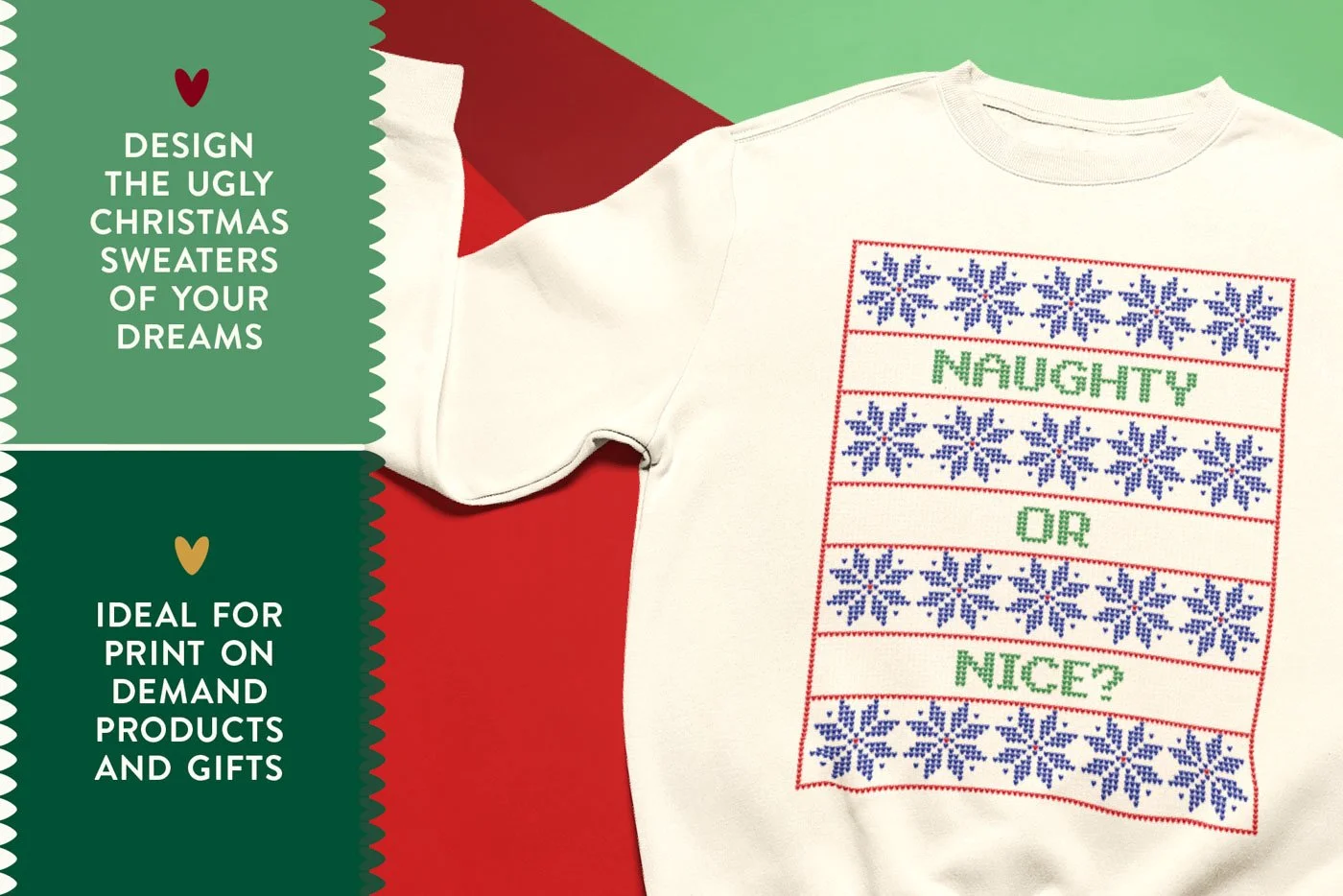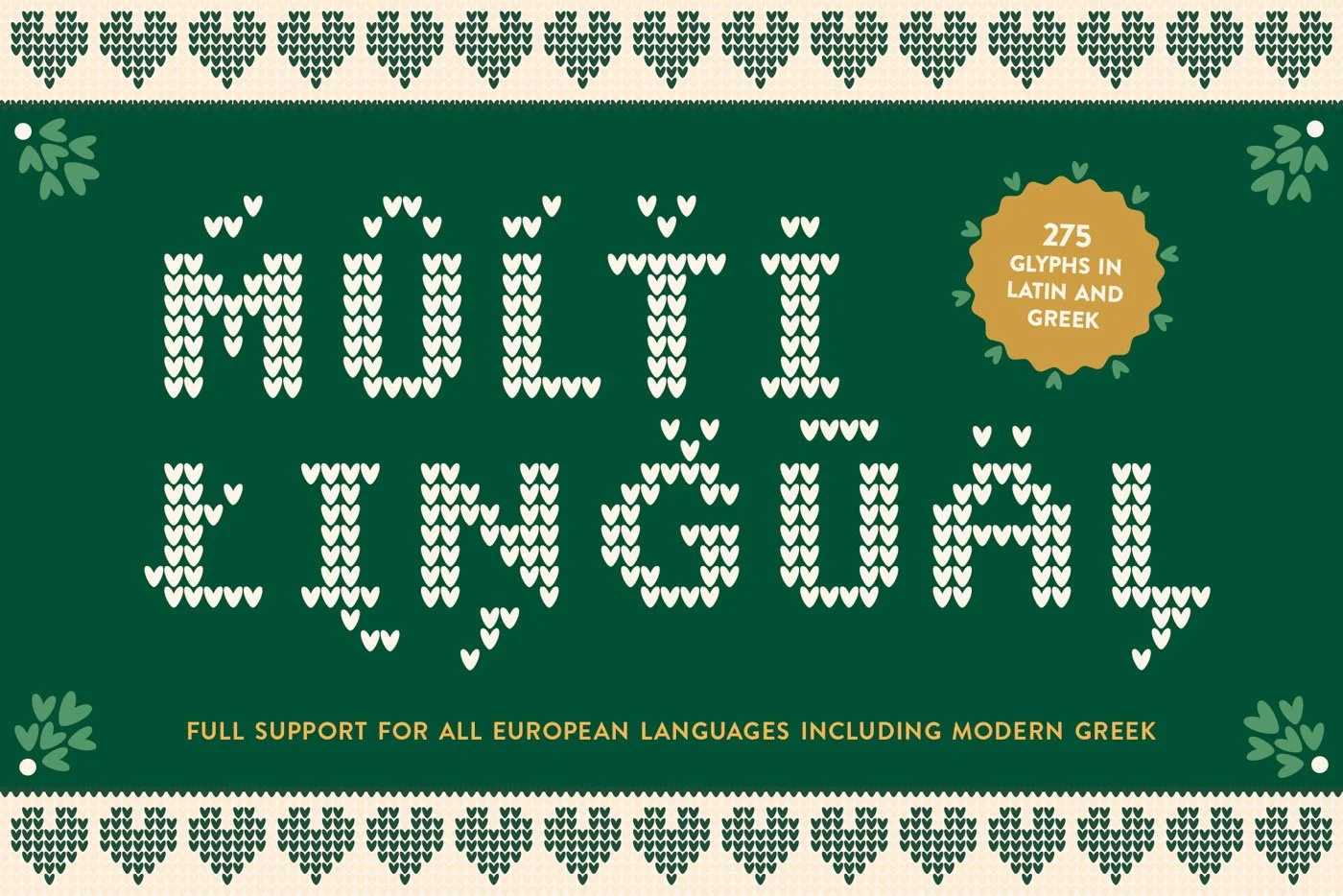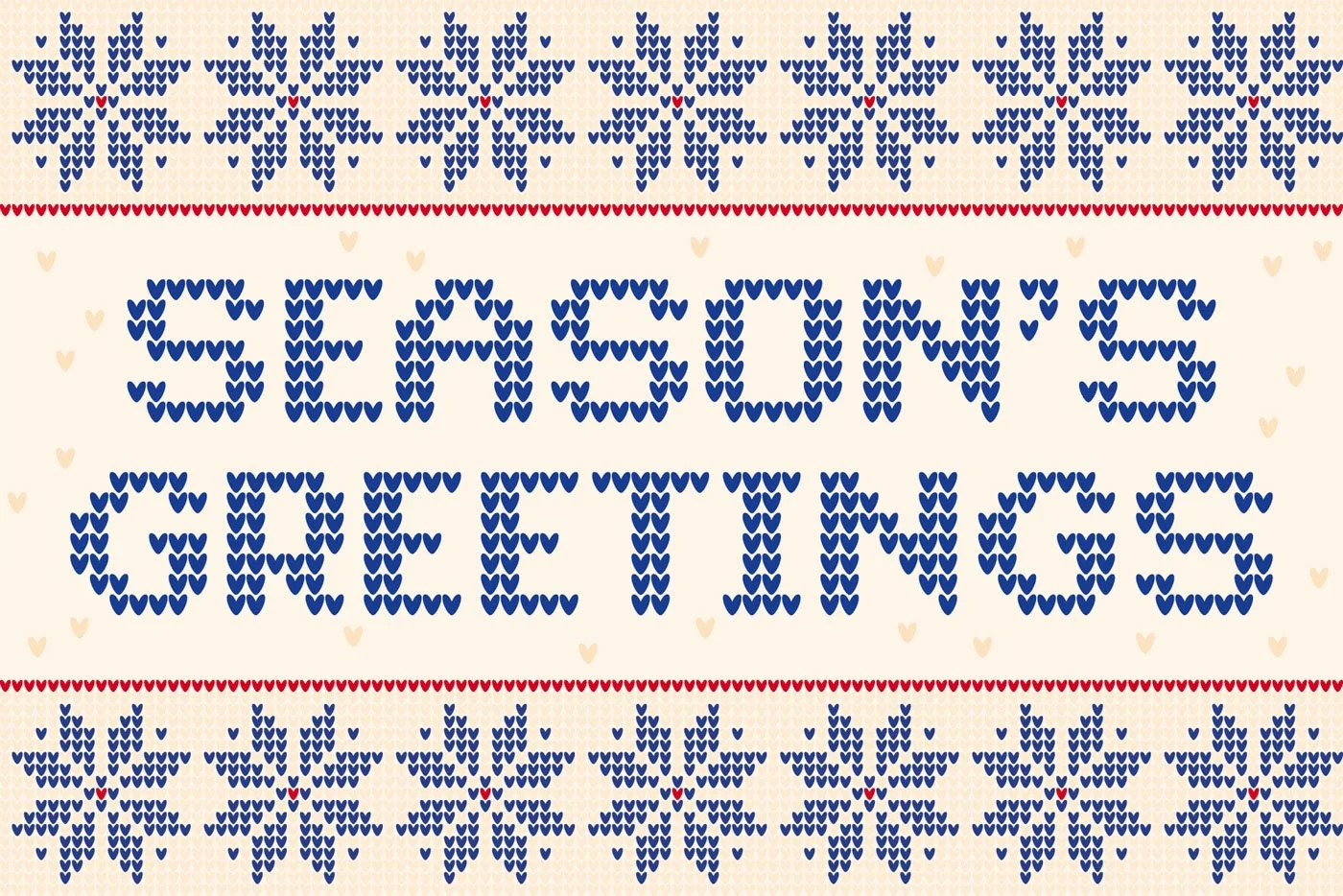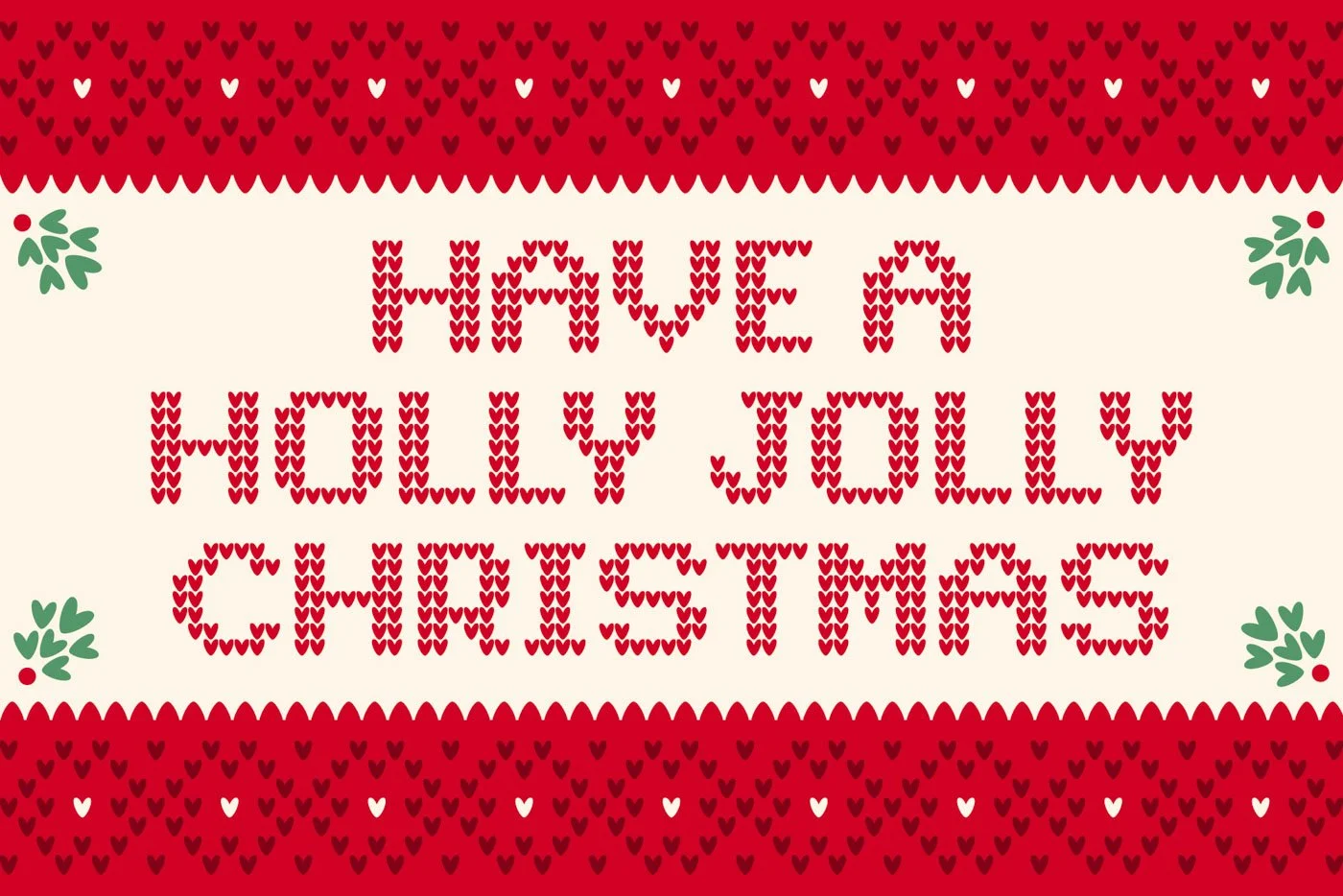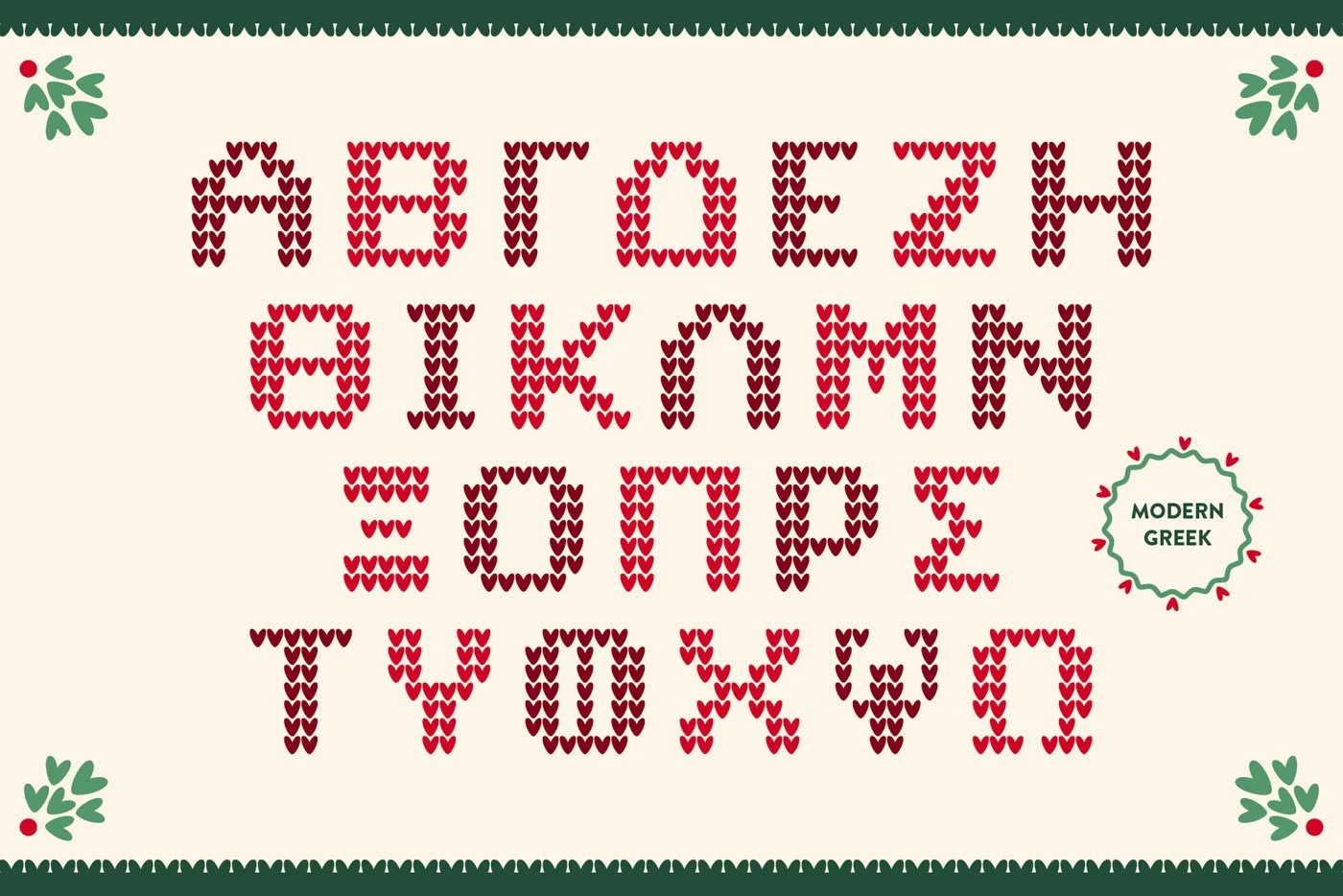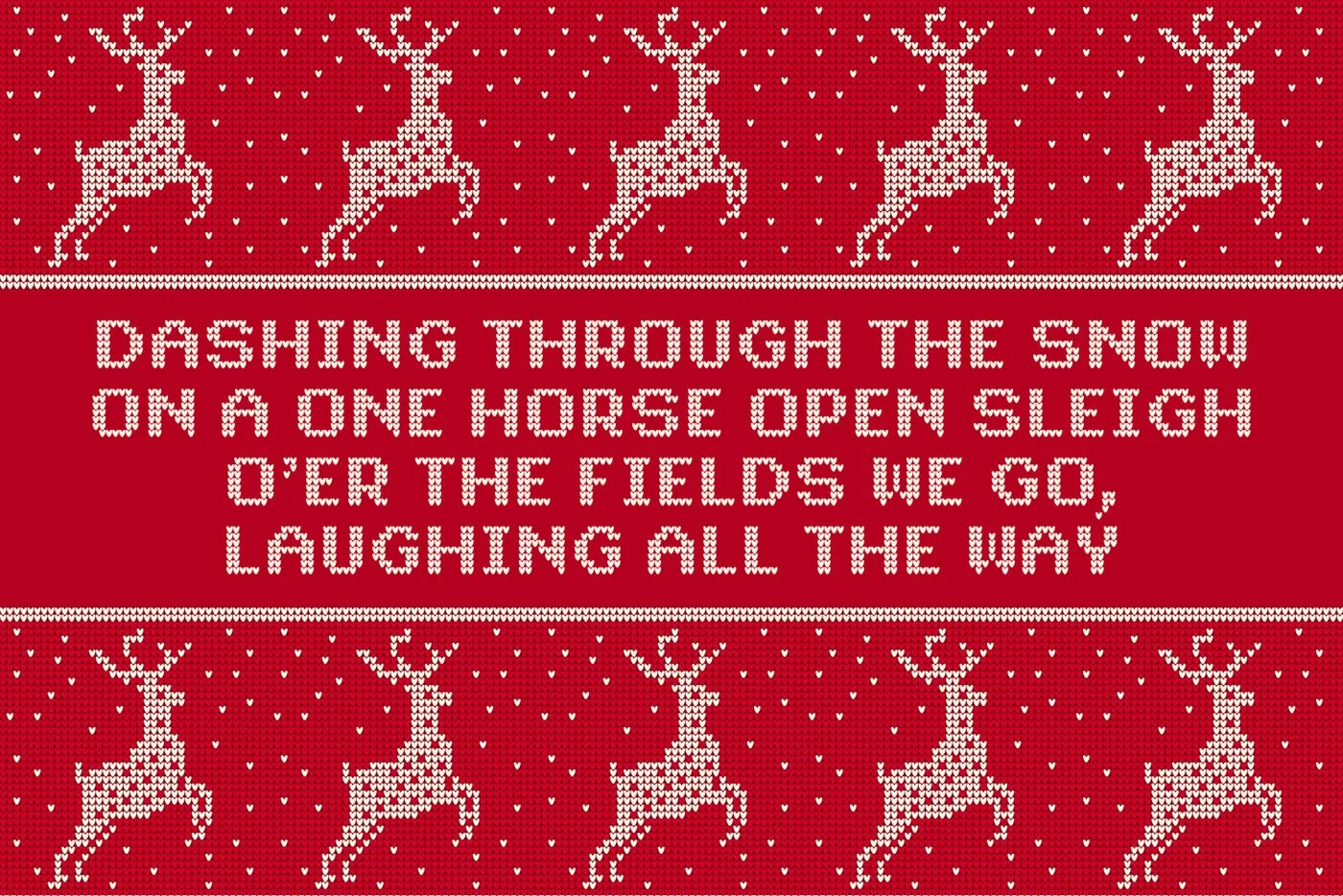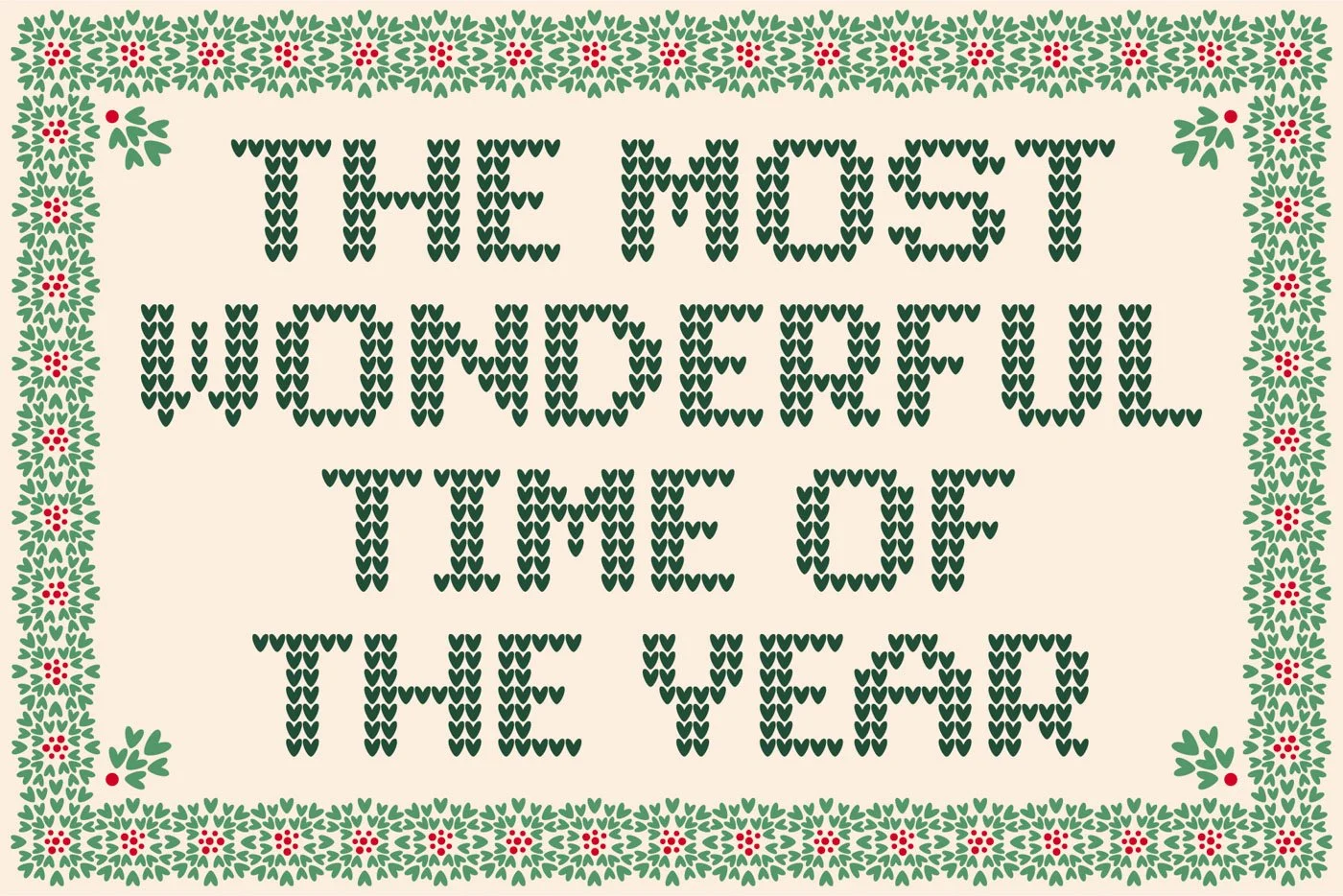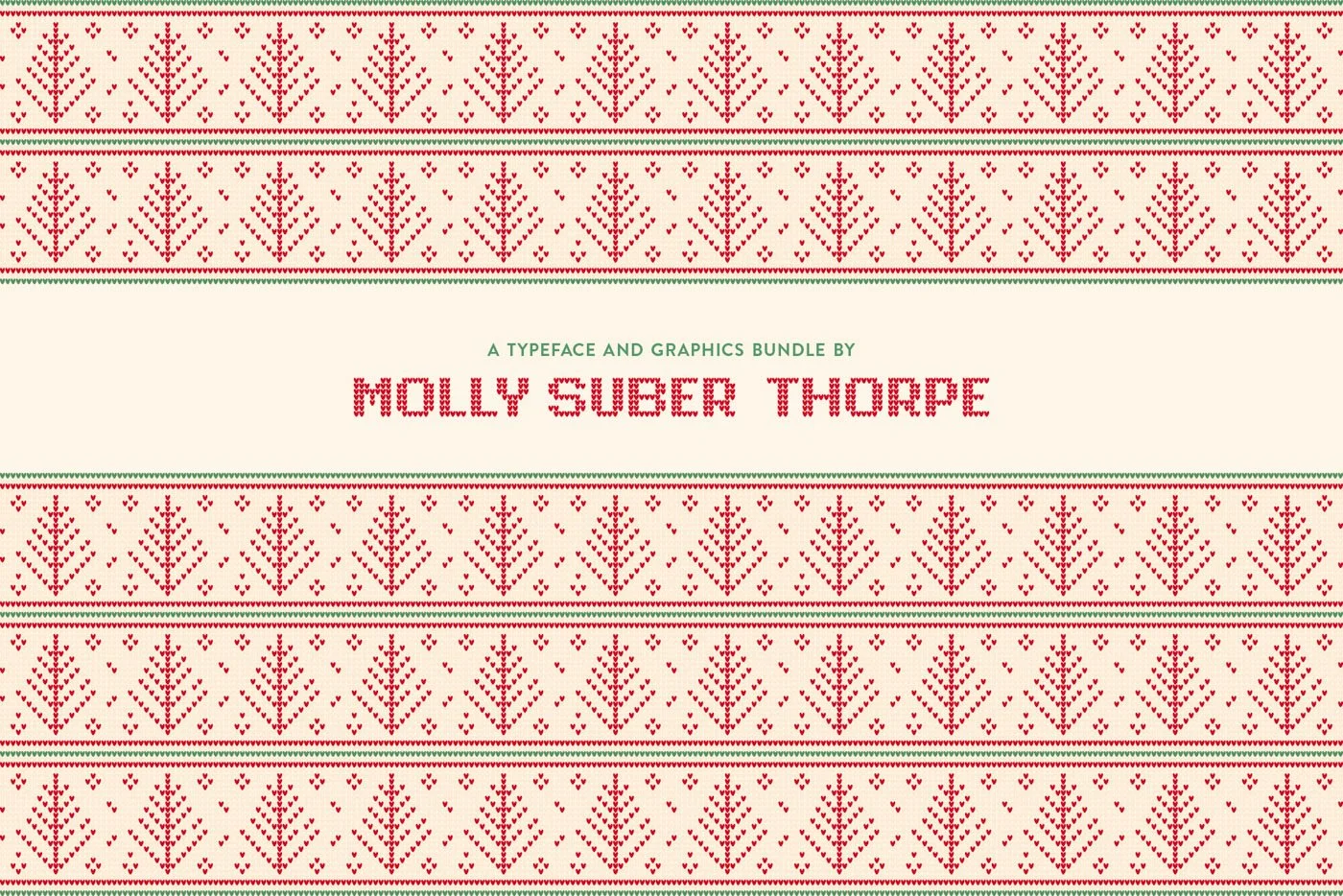
Ugly Sweater Christmas Font and Vector Pack
Ugly Sweater is a knitted typeface formed by small hearts. This display font is ideal for Christmas designs, and is bundled with sweater-themed vector patterns, borders, and ornaments.
Design your own ugly Christmas sweater or print-on-demand products by combining the typeface and complementary vector graphics.
➺ Ugly Sweater Font consists of:
the complete Latin uppercase alphabet (with all accent marks)
the complete Modern Greek uppercase alphabet (with all accent marks)
extensive punctuation
numerals and math symbols
fun dingbats and arrows
➺ Language support
Ugly Sweater Font supports dozens of languages which use the Latin and Greek alphabets. The most common languages it supports are: English, Catalan, Croatian, Czech, Danish, Dutch, Finnish, Flemish, French, German, Modern Greek, Italian, Maltese, Norwegian, Polish, Portuguese, Spanish, and Swedish.
➺ Patterns & Borders
To complement the knitted typeface, you will also get the Ugly Sweater Vector Pack. This bundle contains knitted patterns and borders of snowflakes, reindeer, diamonds, hearts, holly, and more. These designs are fully customizable. Easily edit the colors of the vectors by adjusting the global swatches. Or use the repeating pattern swatches designed for Adobe Illustrator to apply the patterns to any project. You also get a bundle of 36 printable pattern papers for your DIY holiday cards, scrapbooking, and more.